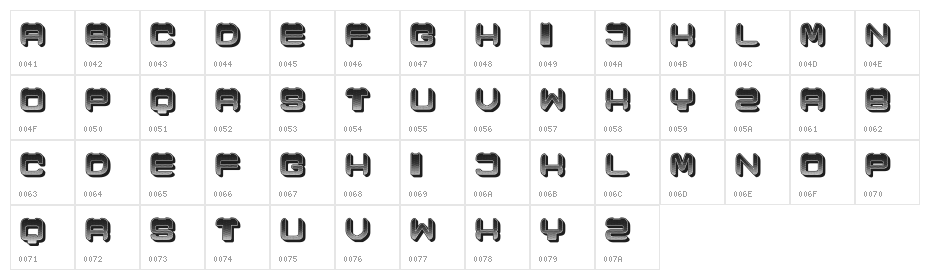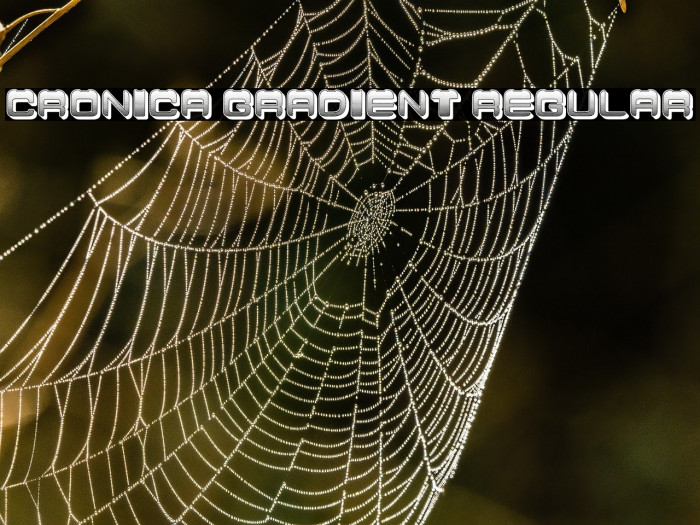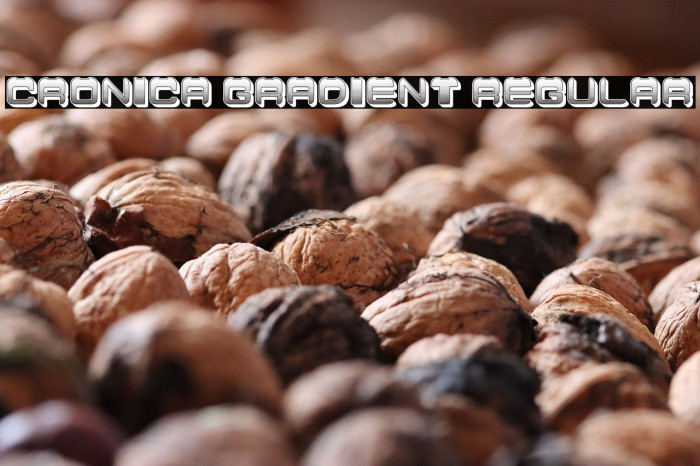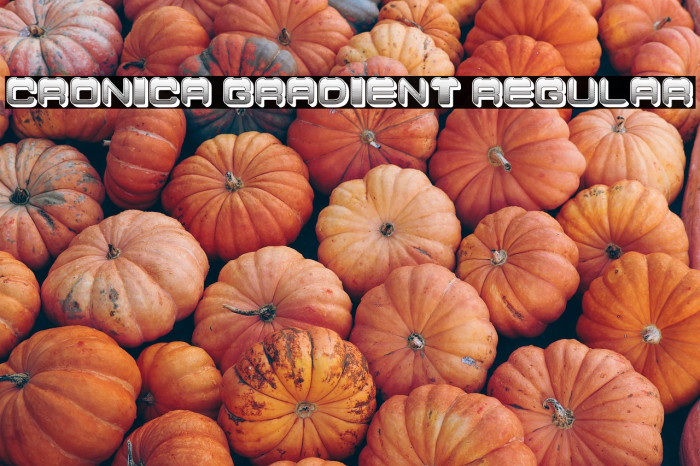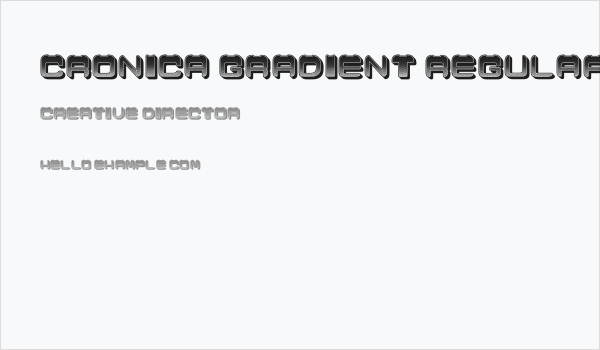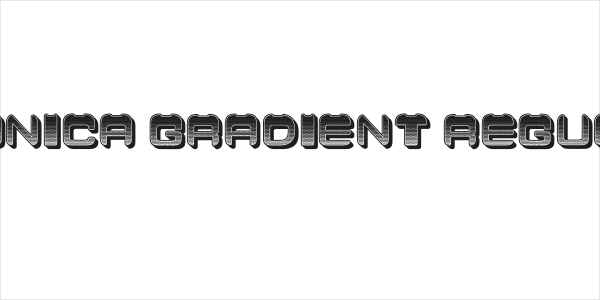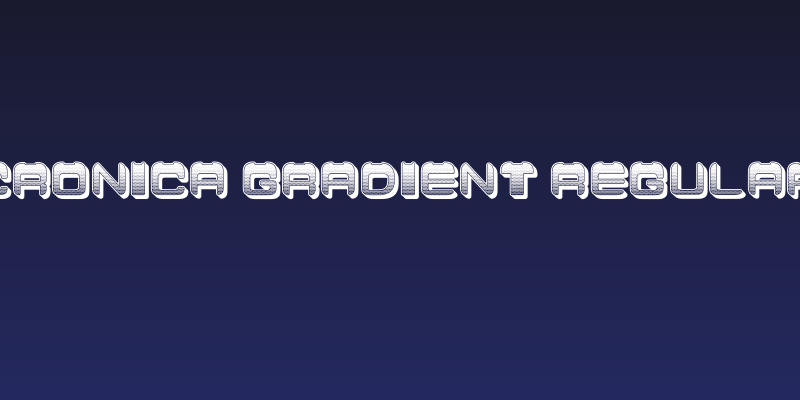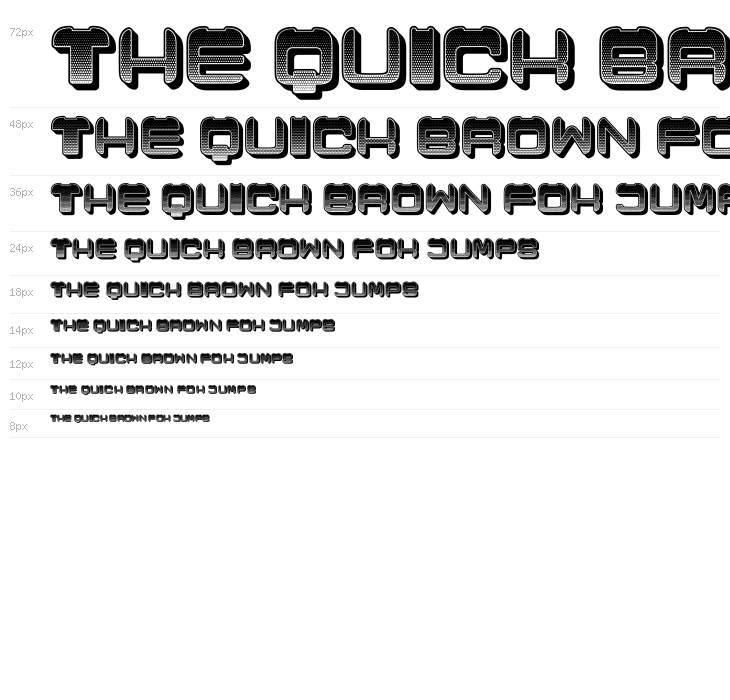
Cronica Gradient Regular Font
Cronica Gradient Regular Description
This font features a bold, futuristic design with a gradient effect that gives it a three-dimensional appearance. The characters are wide and rounded, with a distinct geometric style that makes them stand out. The gradient shading adds depth and a modern touch, making it suitable for eye-catching designs. The font is consistent in its boldness, with each letter maintaining a uniform thickness and style. The spacing between characters is tight, contributing to its compact and cohesive look. This font is ideal for projects that require a strong visual impact.
| Proposed Projects | Ideal for branding, posters, video game titles, and futuristic-themed designs. |